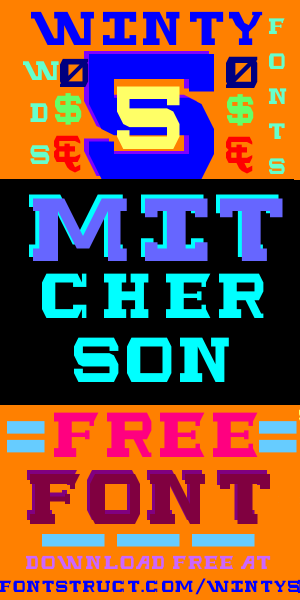
UPDATE: Basic Latin complete. More Latin mostly complete. The preview glitch seems to be fixed, thanks Mr.M!
Sample.
About the "D"; is it me or you intentionally had make it slimmer than the others? And the spacing looks a bit messed up.
D is a little thin, but so is B and a number of others. The spacing is just FS's lack of kerning. Thanks :)